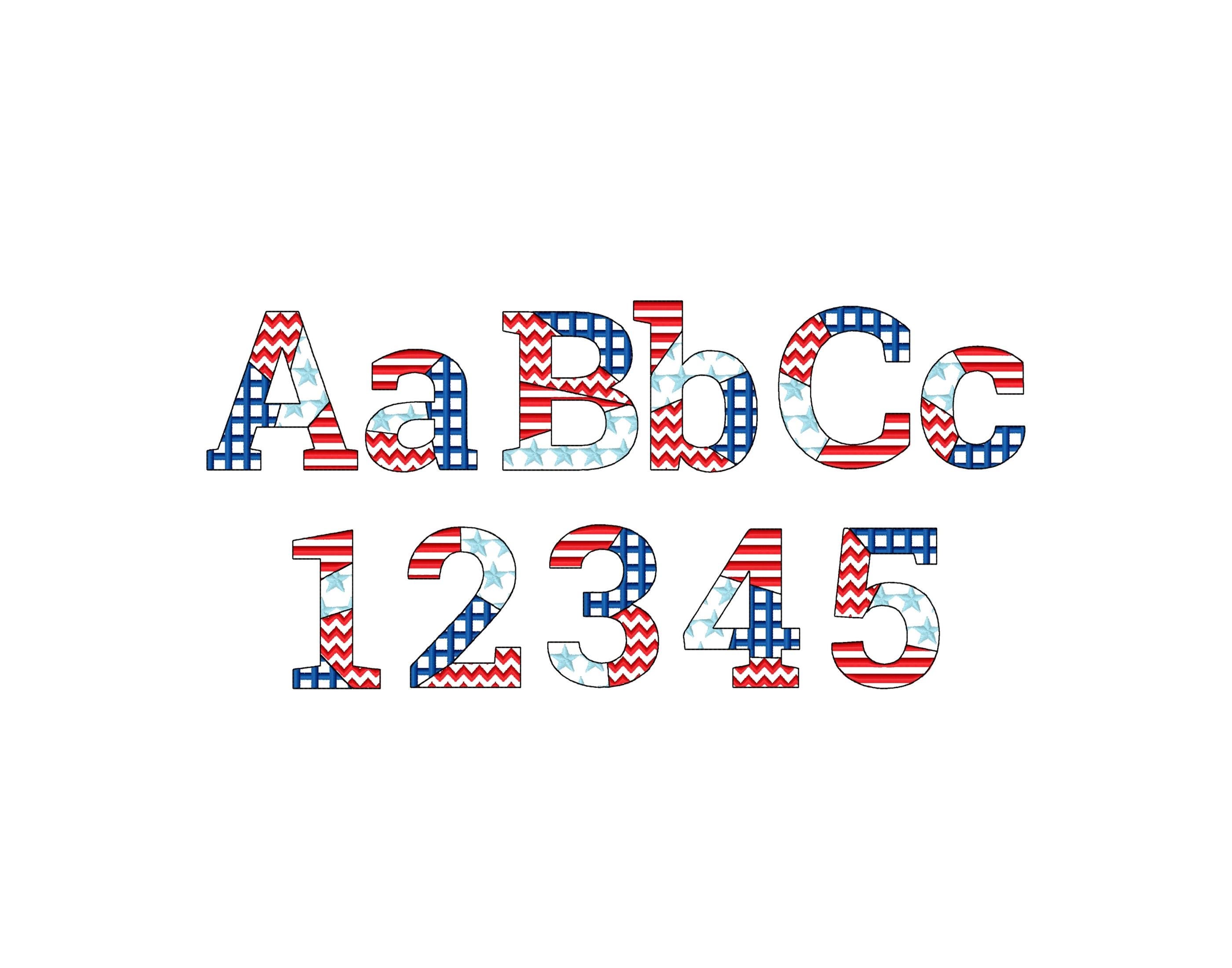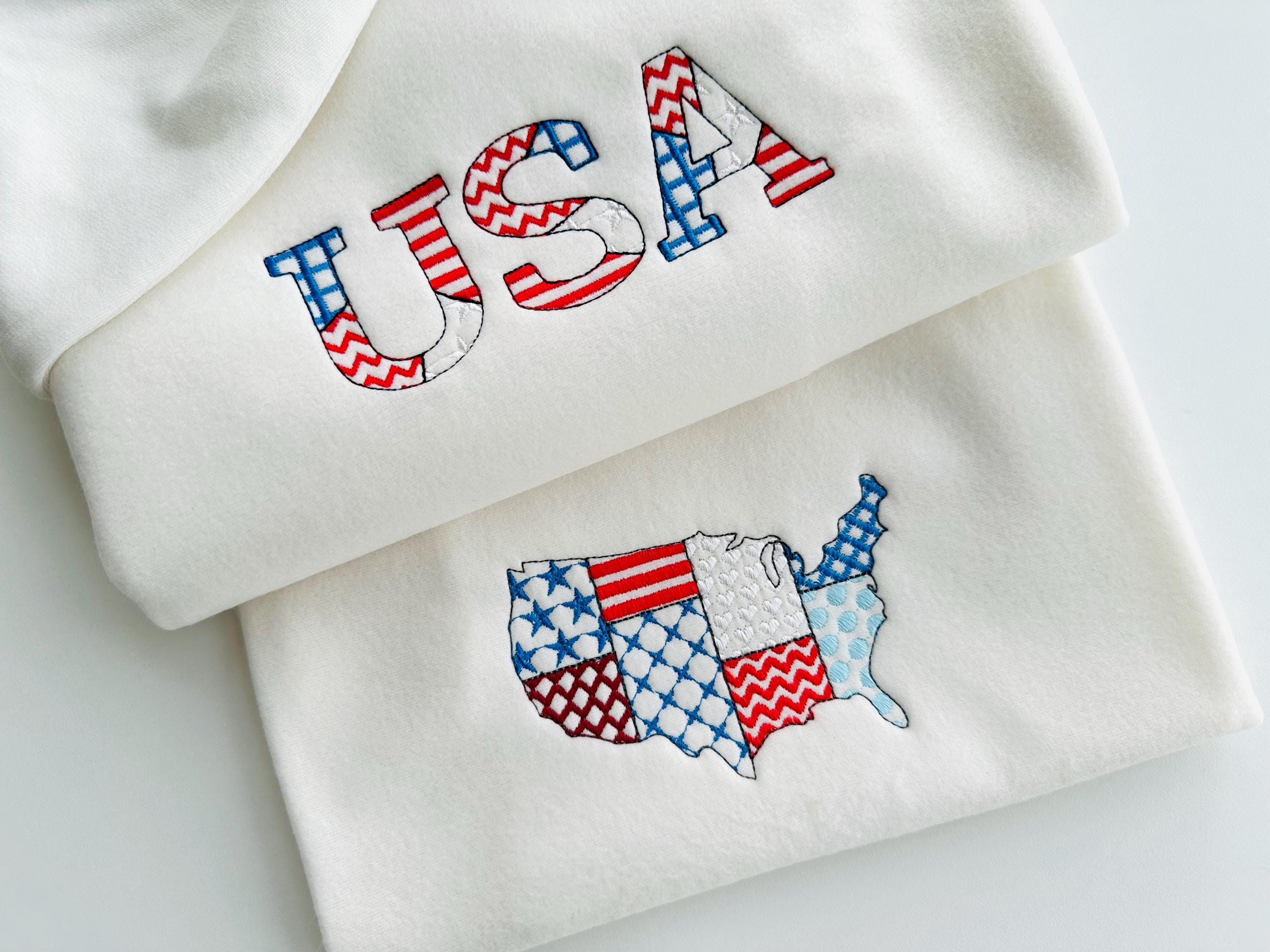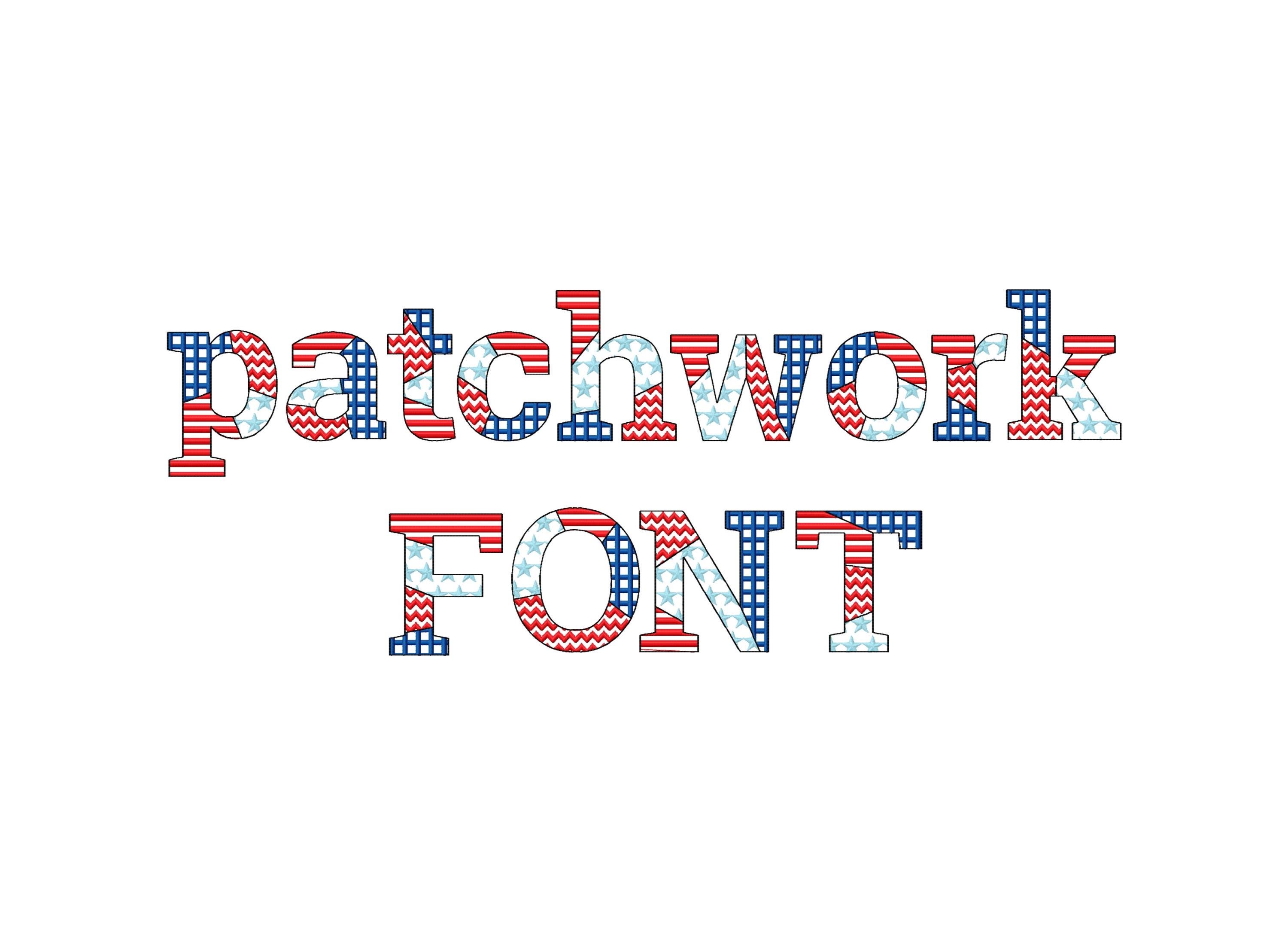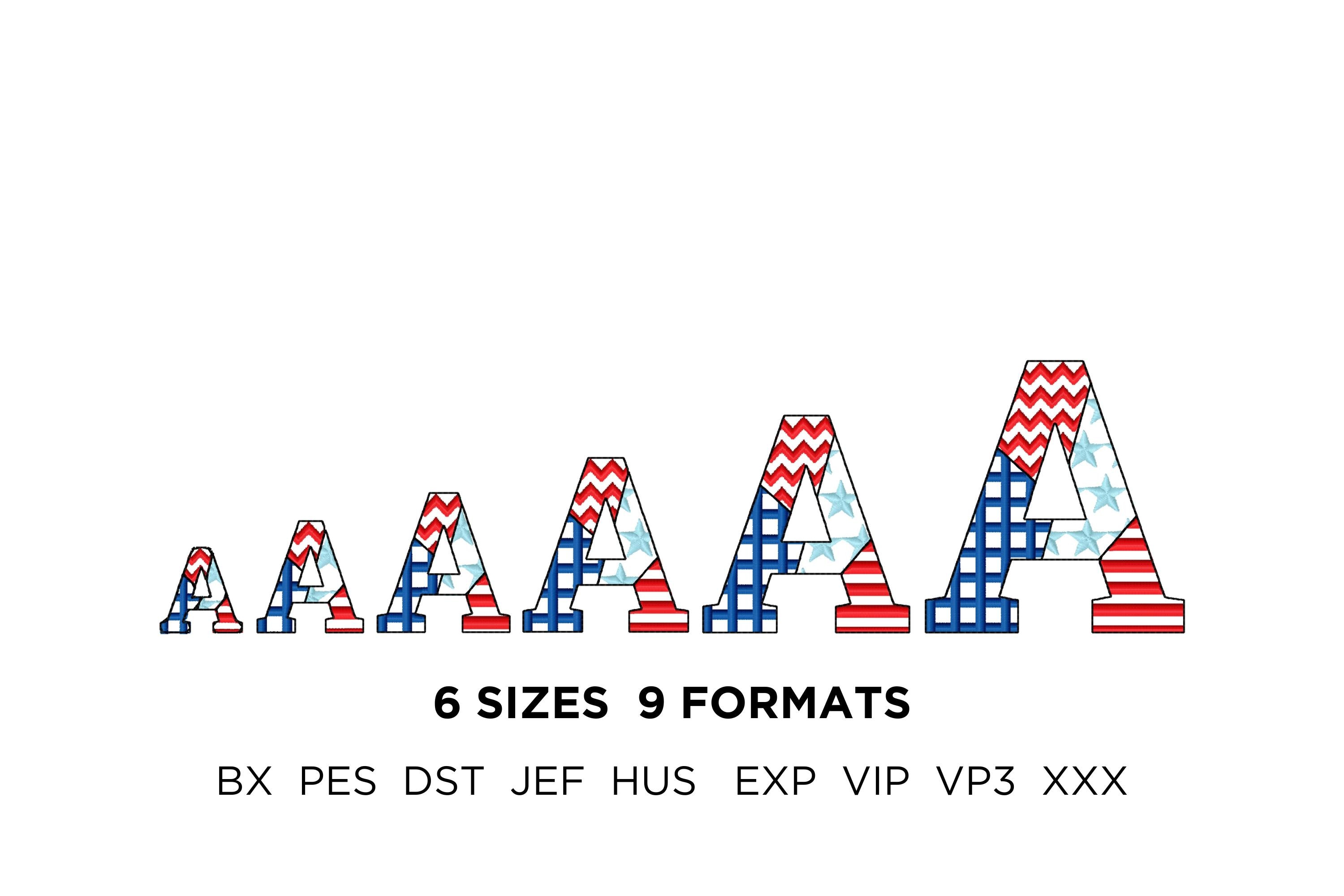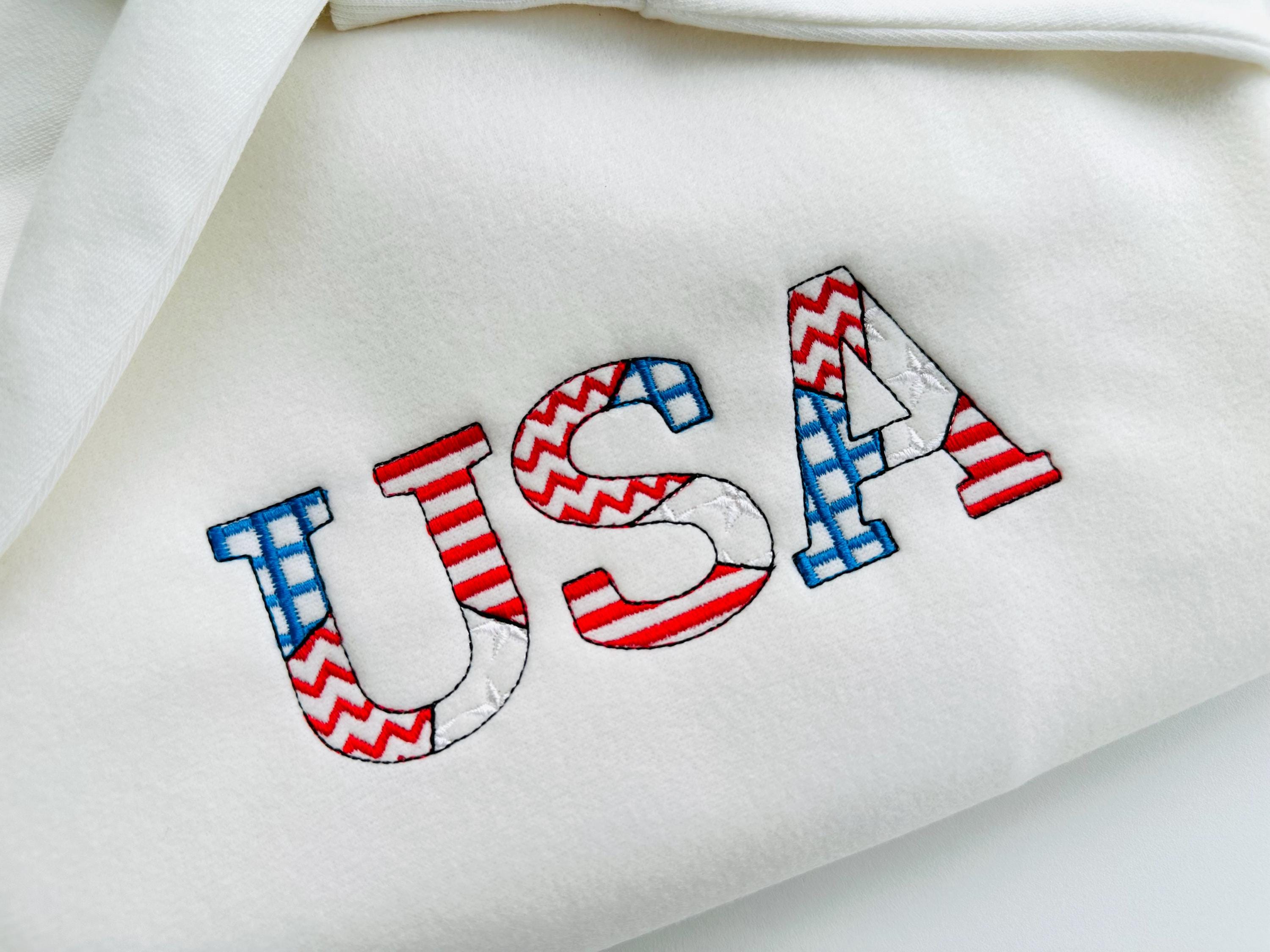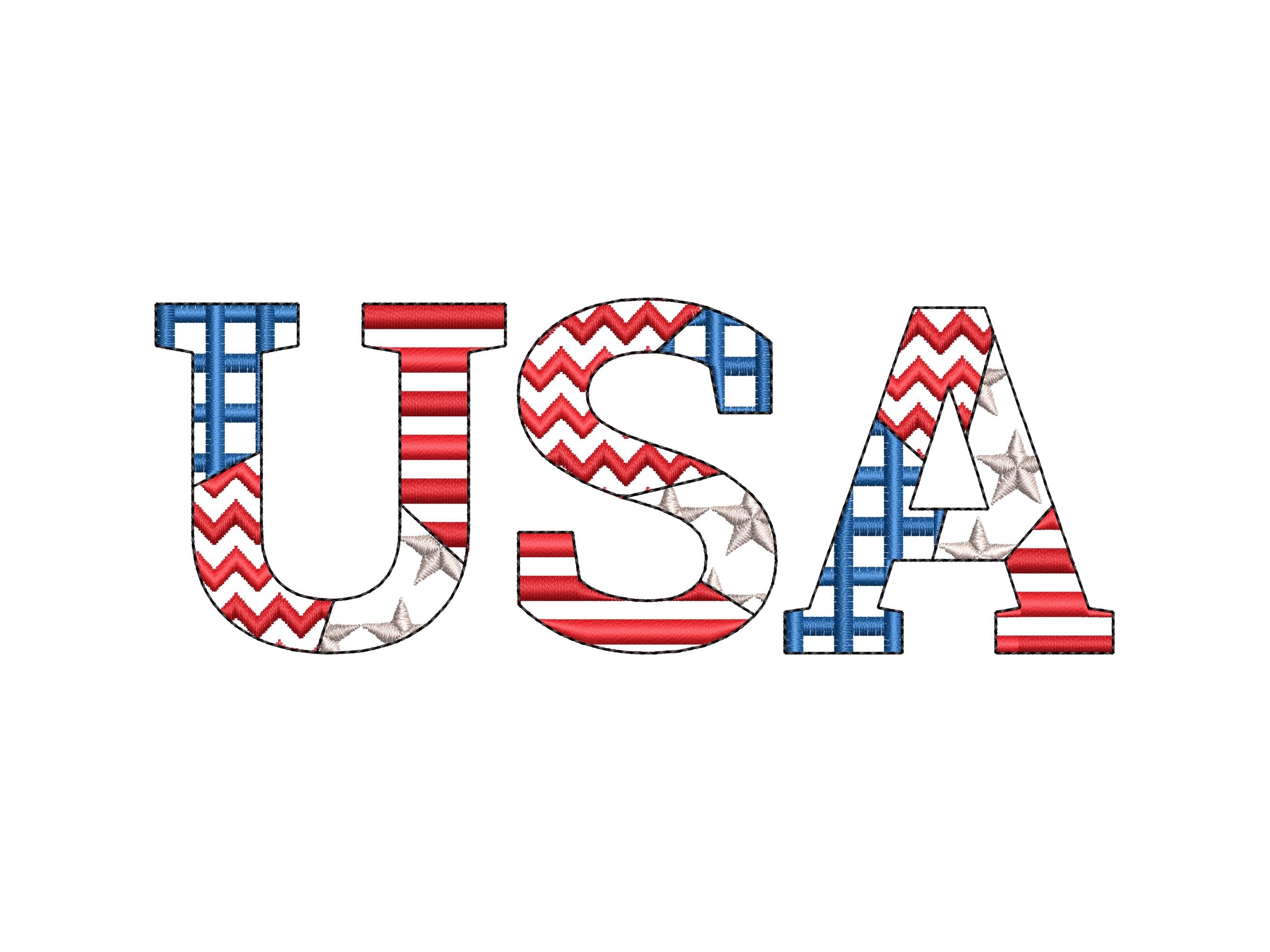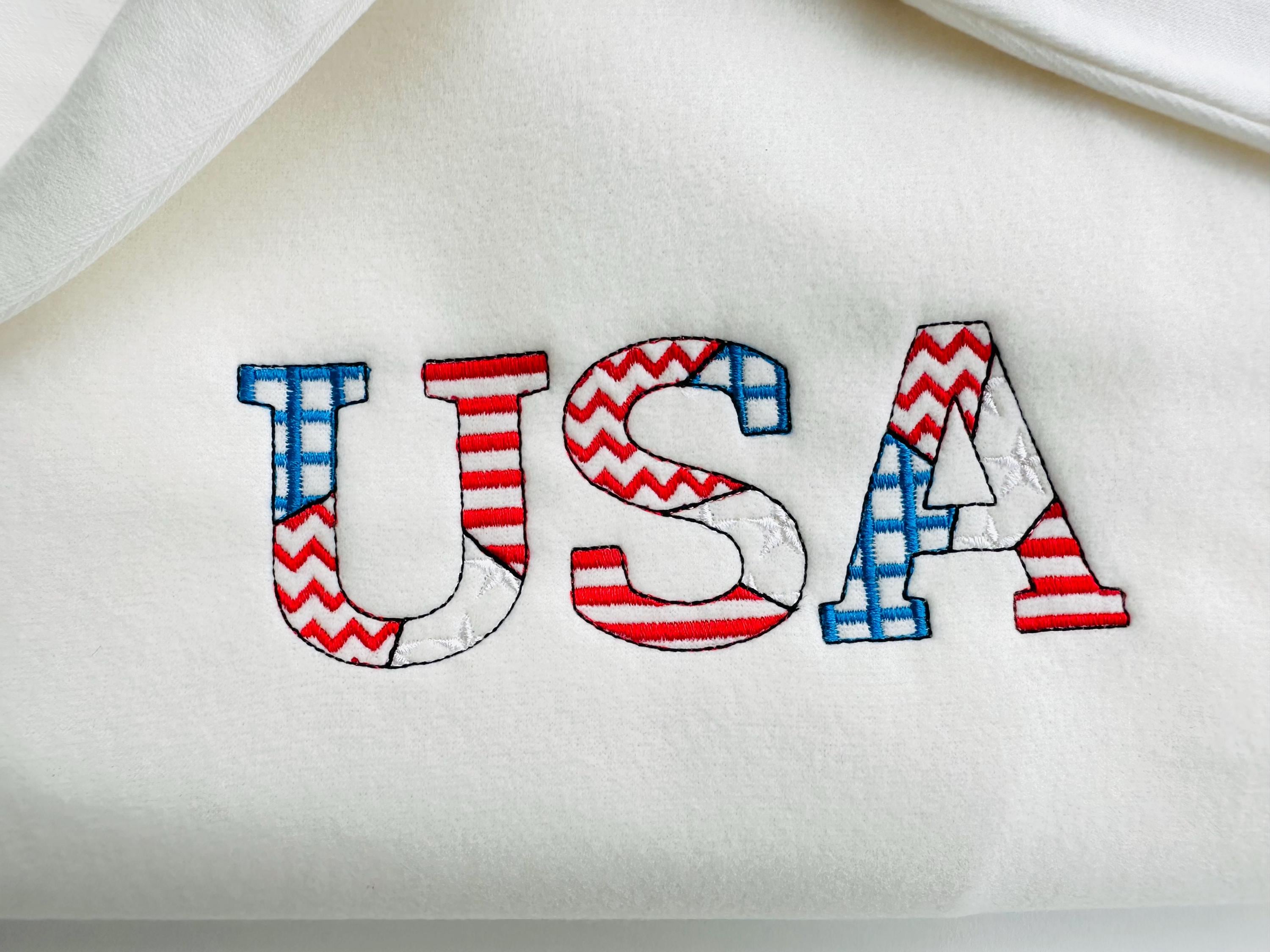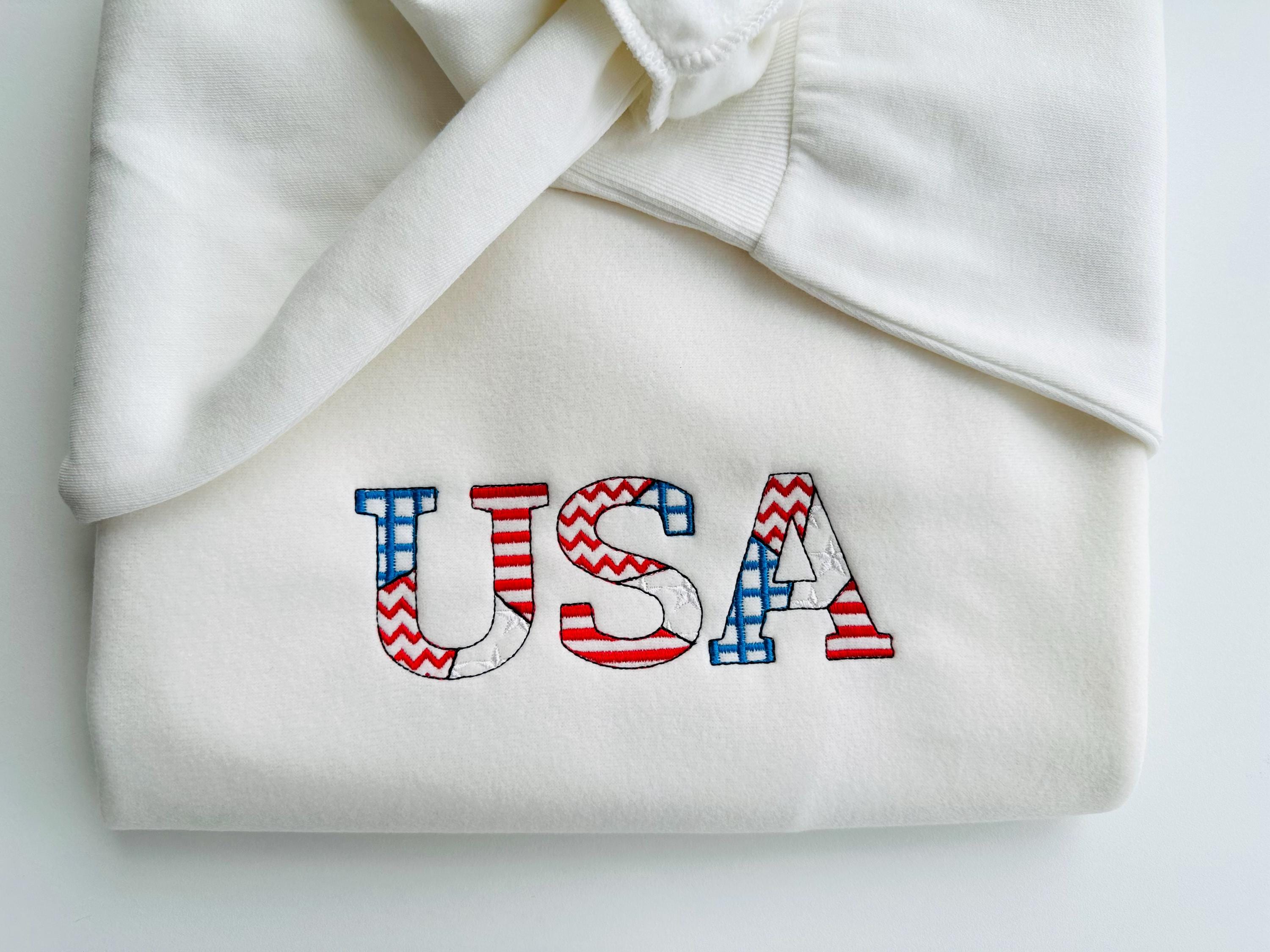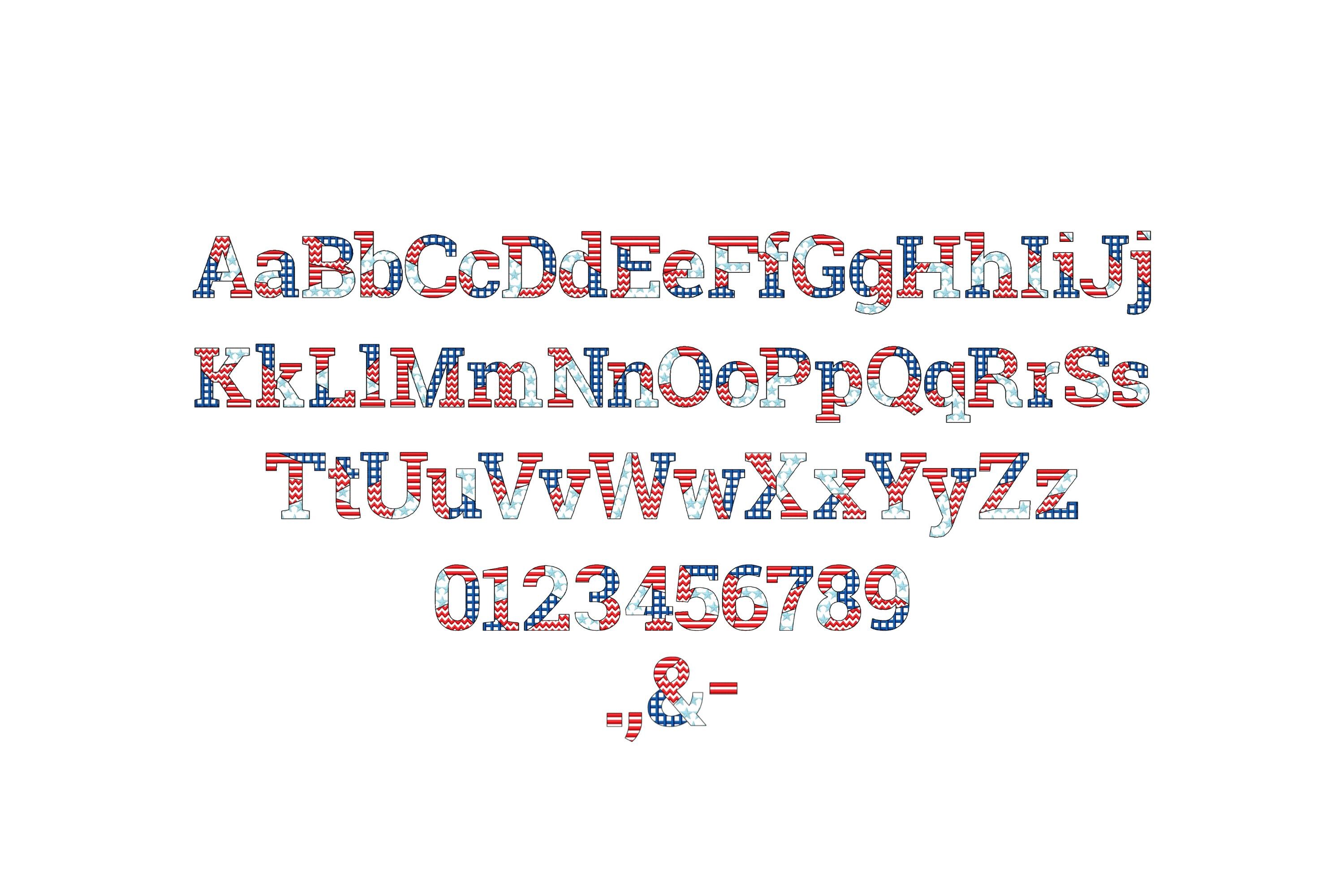
Patchwork USA flag Block FONT patterned and outline alphabet monogram letters patriotic machine embroidery designs sizes 1 up to 3.4 inch
Whole alphabet Aa-Zz uppercase and lowercase letters, numbers 0-9, and punctuation.
Patterns are part of the embroidery. The font is transparent, and the background fabric looks through. Stunning effect!